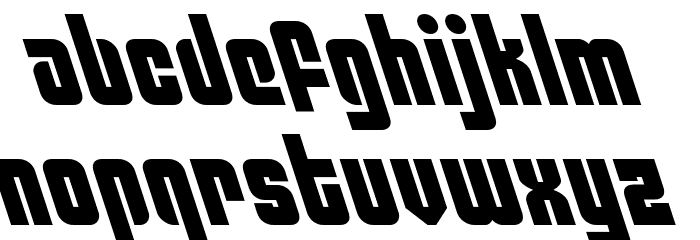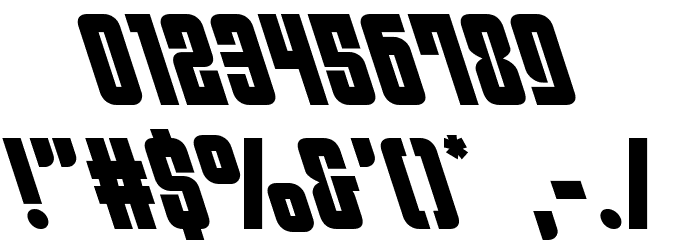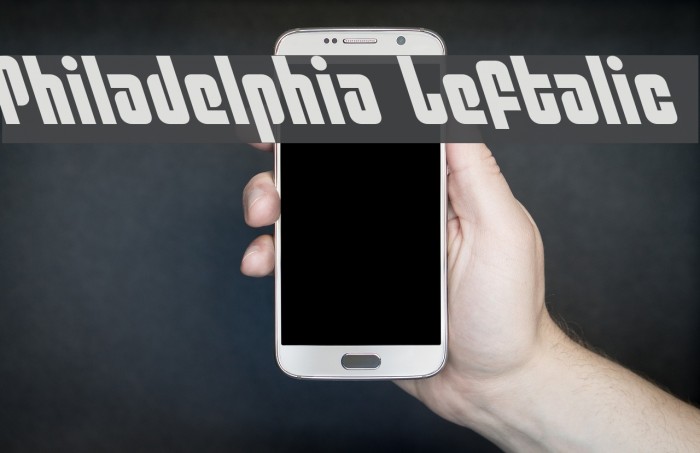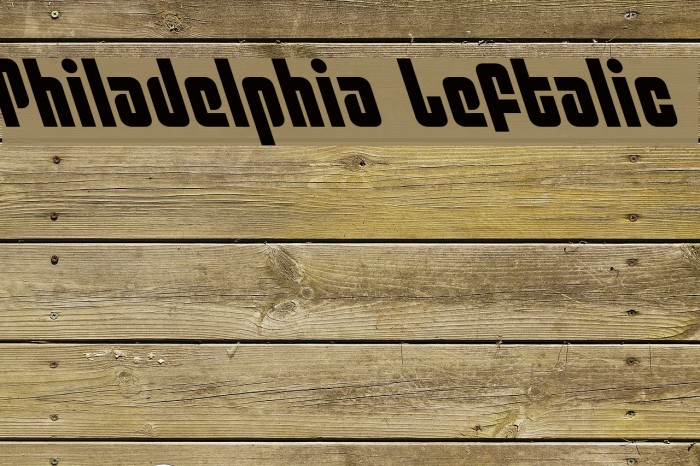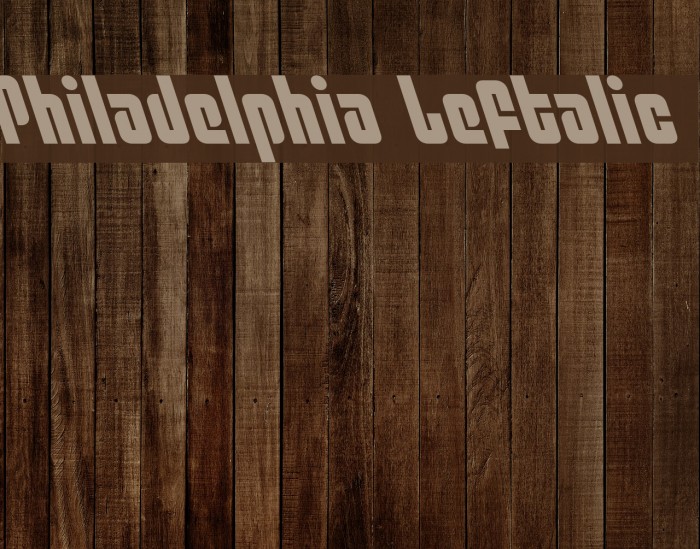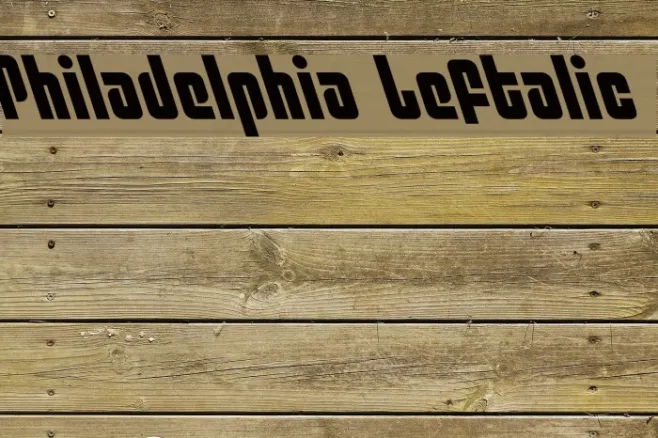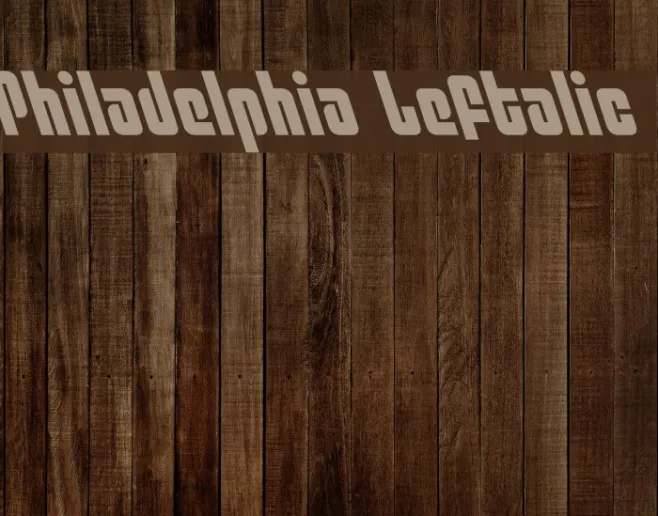
Philadelphia Leftalic Font
This font features a bold, slanted style with a strong geometric influence. The characters are wide and have a distinct, blocky appearance, giving them a powerful and impactful look. The uppercase and lowercase letters maintain a consistent weight, contributing to a cohesive and uniform design. The numbers and special characters follow the same stylistic approach, ensuring visual harmony across all elements. The font's boldness and slant create a dynamic and energetic feel, making it suitable for attention-grabbing designs.
A bold, slanted, geometric font with a strong, impactful presence.
- Font: Philadelphia Leftalic
- Proposed Projects: Ideal for posters, headlines, branding, and any project requiring a bold statement.
- Width: Expanded